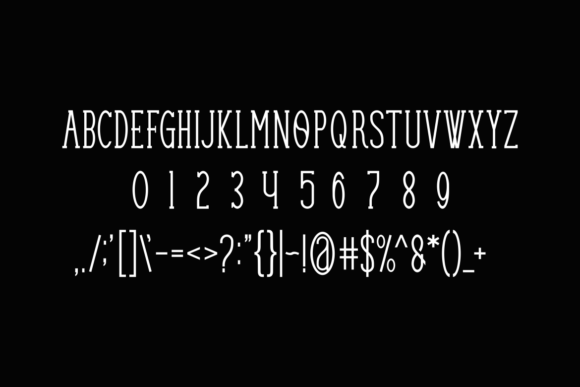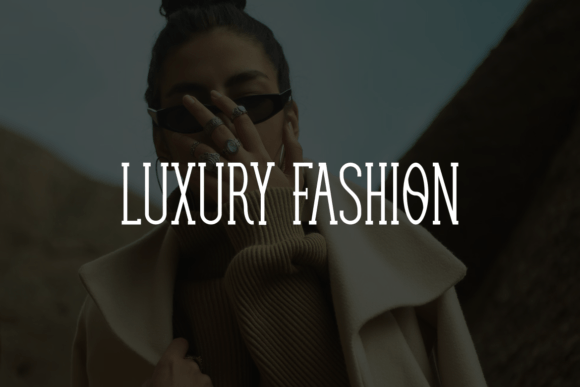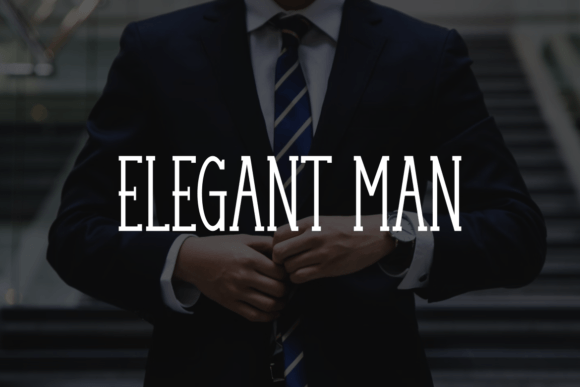
Introduction to Krethos Font
Have you ever found yourself stuck in front of a blank design project, desperately searching for the perfect font to bring your creative vision to life? It’s a feeling many designers know all too well. For those moments, we have a solution that’s both elegant and versatile – the Krethos Font. This modern serif font seamlessly blends classic sophistication with a fresh, contemporary look, making it the ultimate design resource for any project.
Whether you’re working on a high-quality print brochure or a digital design project, the Krethos Font is sure to elevate your creative work. Its clean lines and stylish details are perfect for designers looking to add a touch of sophistication to their designs. Plus, with a transparent background option available, you can easily use this font in any creative project, from logos to website headers.
Key Features of Krethos Font
- Unique, modern design perfect for adding a touch of sophistication to any design project
Honest Review: Krethos Font
As a designer, I’m always on the lookout for high-quality design resources to elevate my creative projects. The Krethos Font caught my eye with its unique style and free download option. Here’s my honest review:
- ✨ Unique and creative design: The Krethos Font boasts a distinctive style that sets it apart from other fonts.
- ✨ High-quality rendering: The font renders beautifully, even on low-resolution screens.
- ✨ Transparent background: This feature is a must-have for designers who want to create seamless designs.
- ⚠️ Limited font styles: The Krethos Font only comes in a few styles, which may limit its versatility.
Overall, I’m impressed with the Krethos Font. It’s a great resource for designers who want to add a unique touch to their creative projects. While it has some limitations, it’s definitely worth considering for your next design project.
Tips for Getting the Most Out of Krethos Font
To get the most out of Krethos Font, experiment with different font sizes, colors, and styles to find the perfect combination for your design. You can also use it in conjunction with other design elements, such as images and shapes, to create a unique and eye-catching visual effect.
Krethos Font is commonly used in creative projects, such as logo design, social media graphics, and business materials. Its high-quality design and transparent background make it a versatile and effective design resource.
Yes, the Krethos Font supports transparent backgrounds, making it ideal for design projects that require a high level of customization. However, please ensure that your design software supports transparent fonts and is set up to display them correctly.
Is the Krethos Font suitable for high-quality printing?
Yes, the Krethos Font is designed to be high-quality and suitable for printing. The font’s clear and crisp design ensures that it will look great in print, whether you’re using it for business cards, brochures, or other marketing materials.